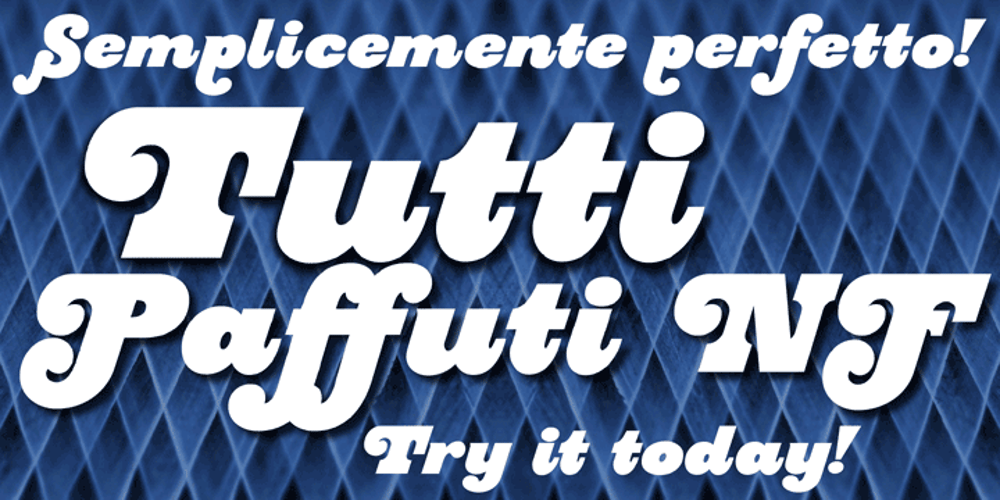
Tutti Paffuti NF
Tutti Paffuti NF font
Tutti Paffuti NF Font Family was designed by Nick Curtis and published by Nick’s Fonts. Tutti Paffuti NF contains 1 styles and family package options. The specimen book Alphabete: ein Schriftatlas von A bis Z identified the pattern for this typeface as Stymie Black Flair. Although neither the designer nor the original foundry is identified, it bears a strong resemblance to the work of Dave West for Photolettering in the 60s and 70s. Big, beautiful and bodacious, it’s a natural choice for attention-grabbing headlines. Many alternate characters available: see the full character map. The PC PostScript, TrueType and OpenType versions contain the complete Latin language character set (Unicode 1252) plus support for Central European (Unicode 1250) languages as well.